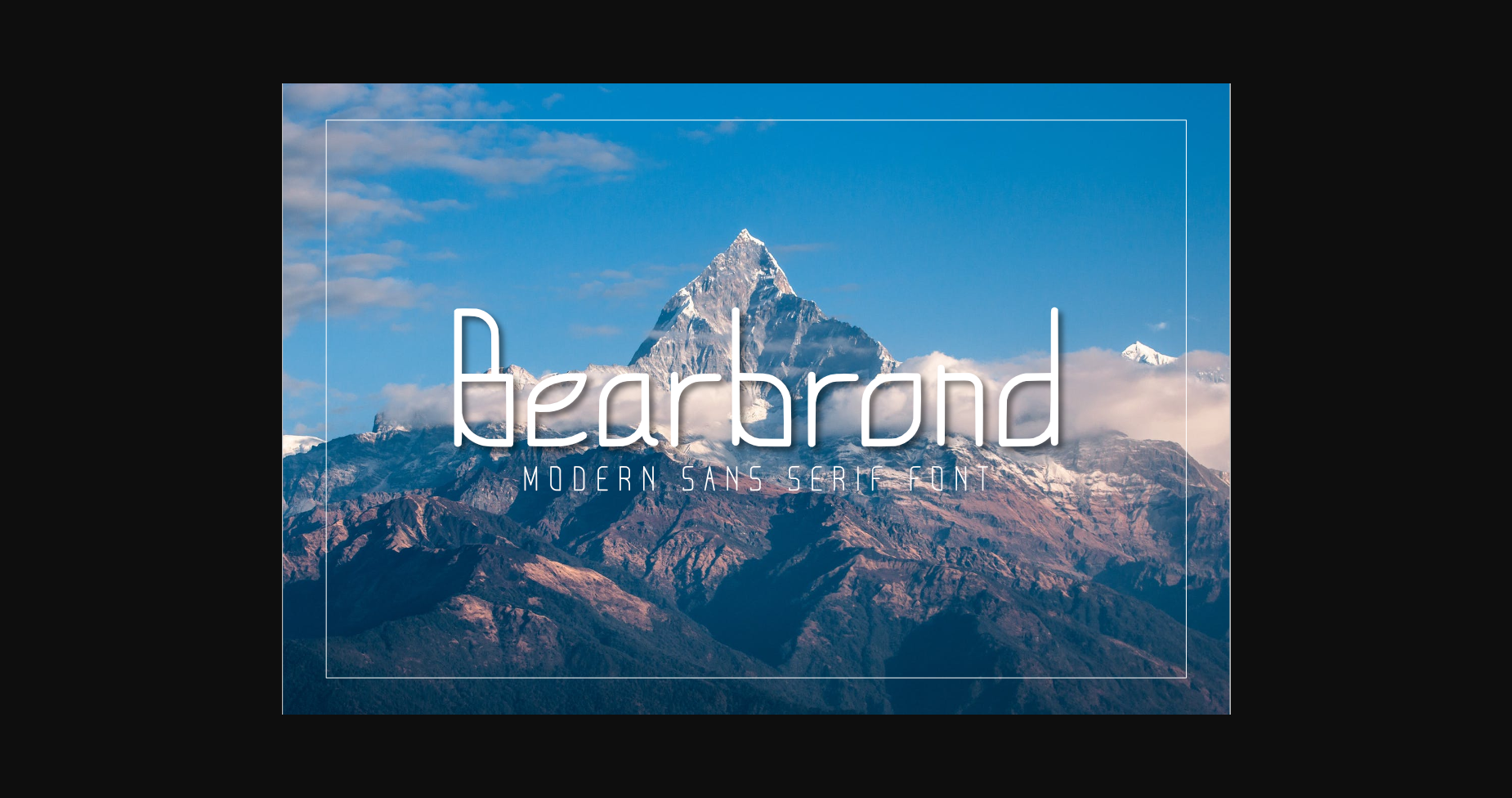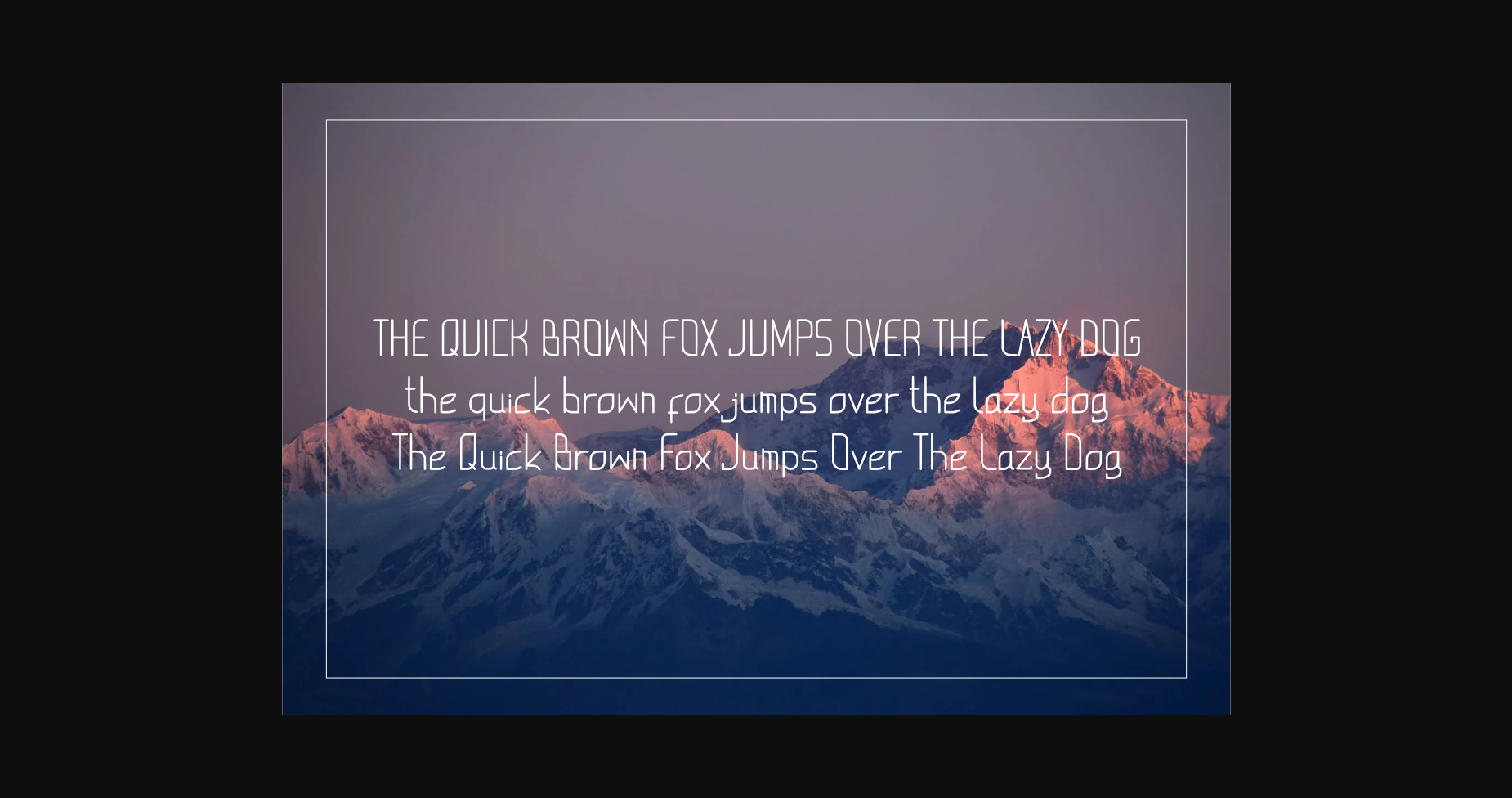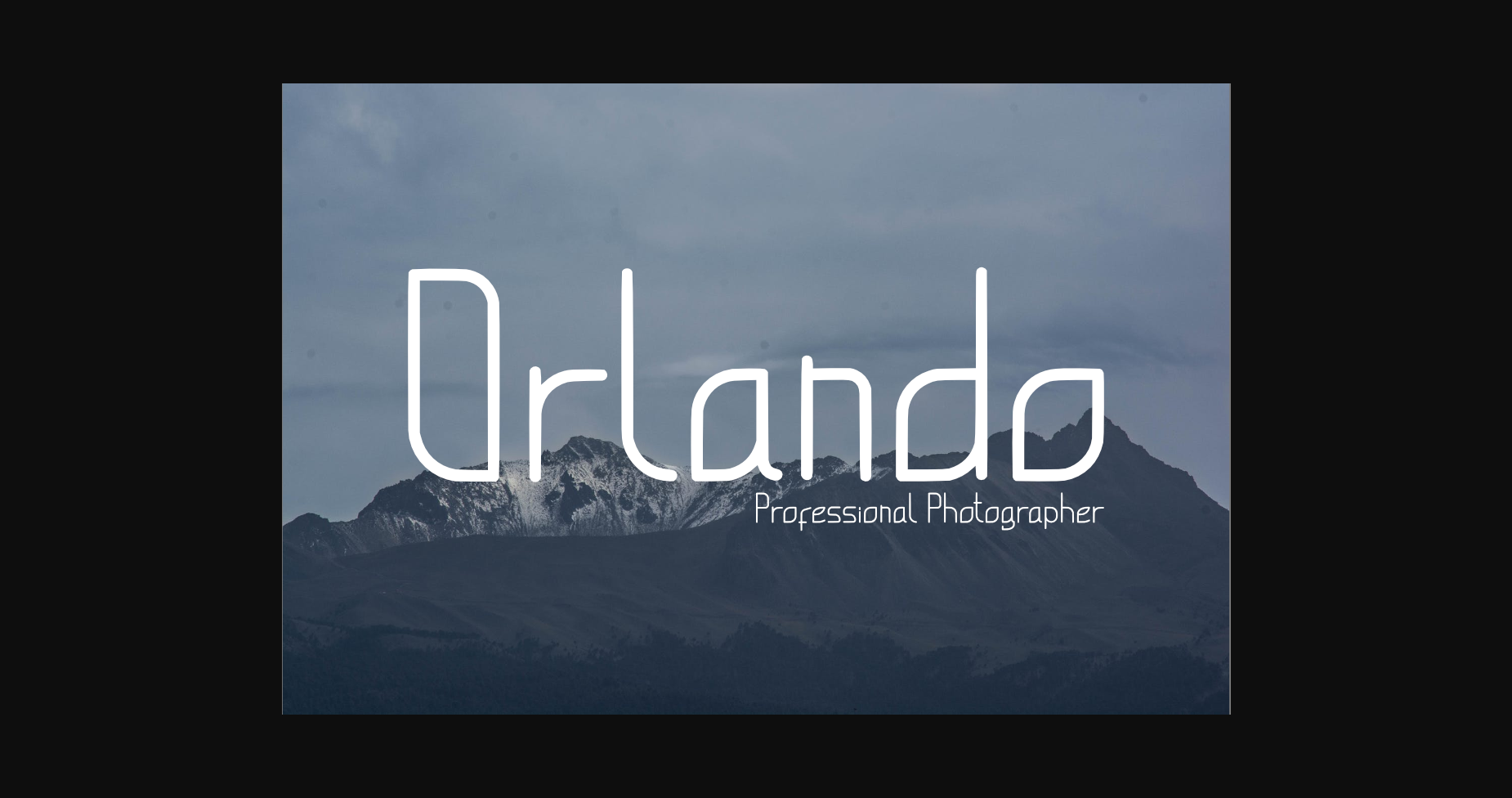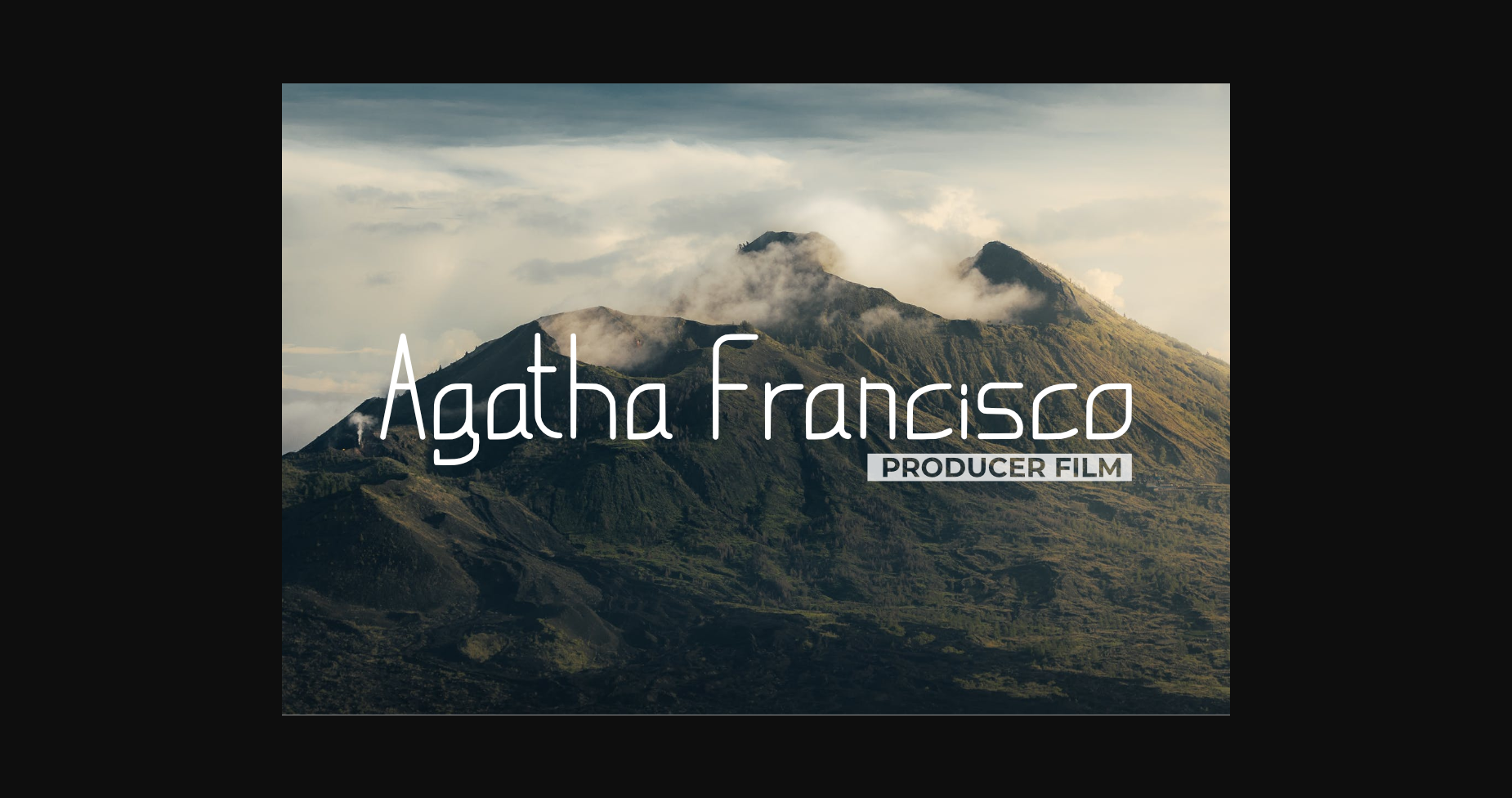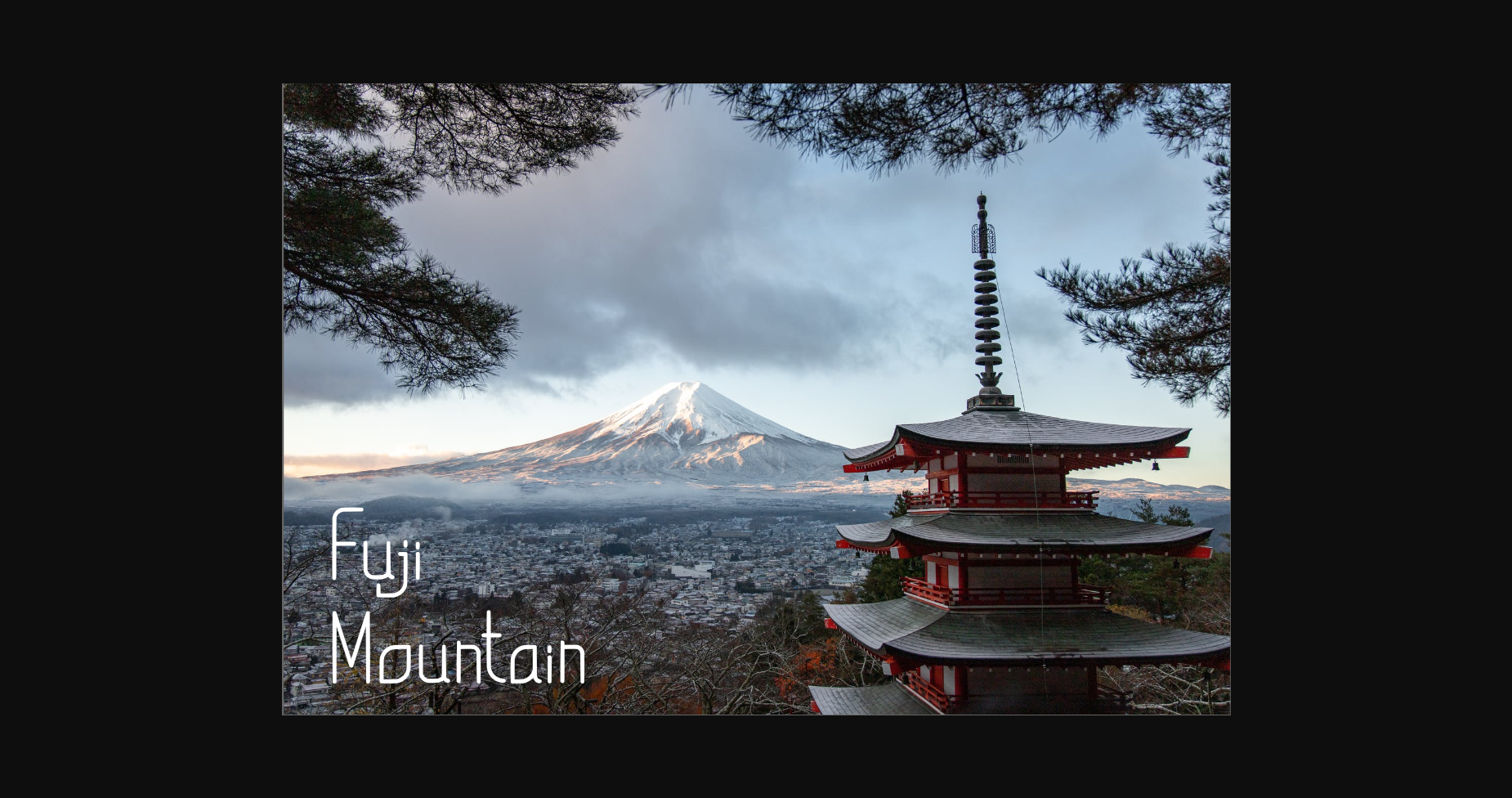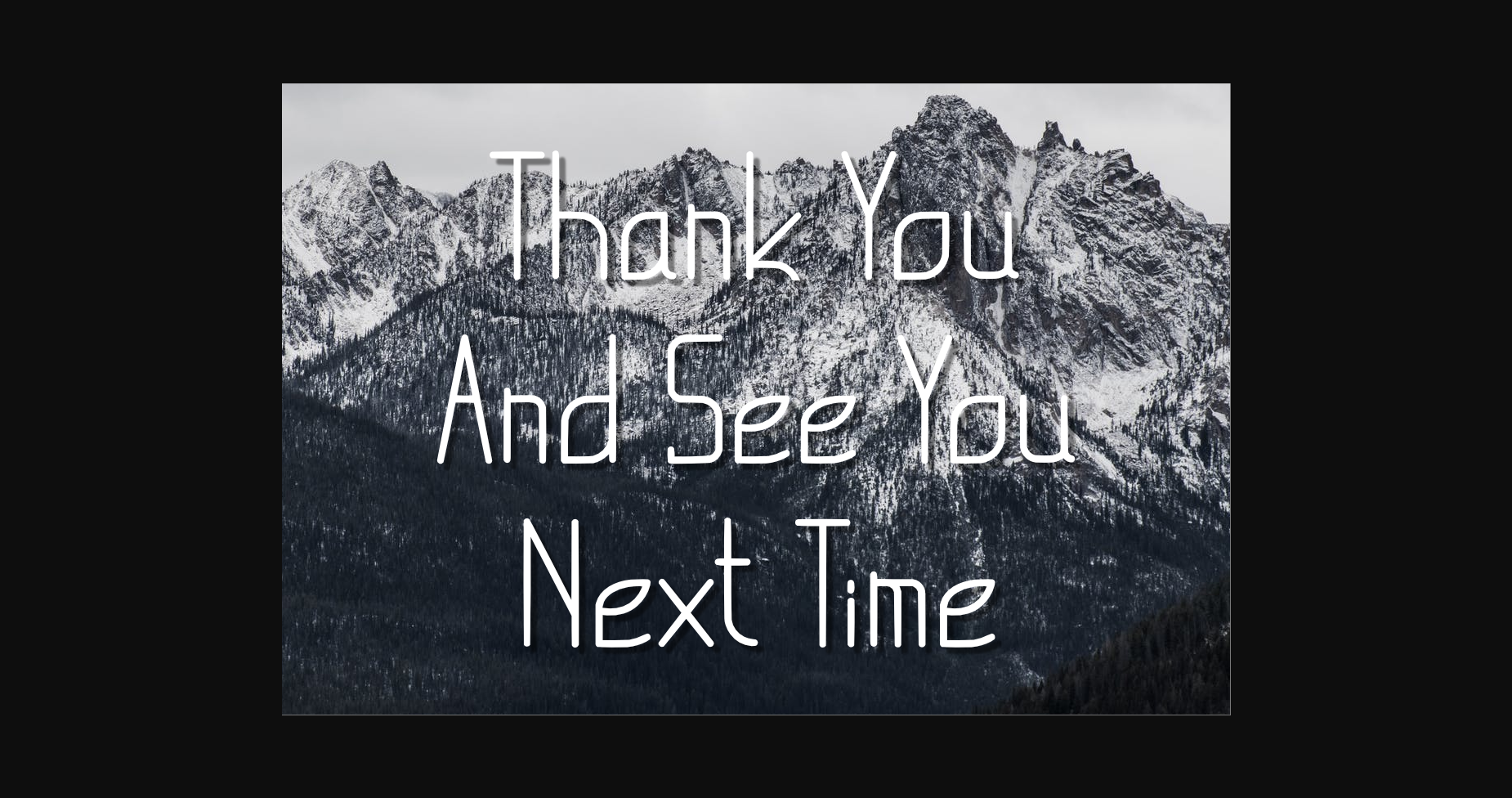
Bearbrond is a minimal and neat sans serif font. It can easily be matched to an incredibly large set of projects, so add it to your creative ideas and notice how it makes them stand out!